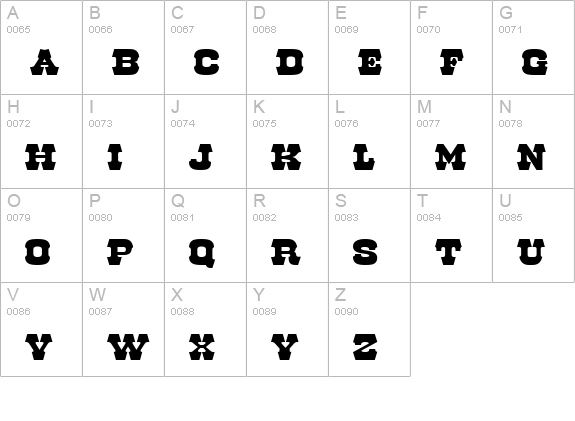
Red Dog Saloon Font Details
The Red Dog Saloon font is a charming and rustic typeface that exudes a sense of adventure and nostalgia. Inspired by the old Wild West saloons, this font perfectly captures the rugged essence of the era. With its bold and decorative letterforms, Red Dog Saloon adds a touch of whimsy and authenticity to any design project. But what truly sets Red Dog Saloon font apart is that it is not only visually stunning but also freely available to download at FontsMarket.com. Yes, you read that right - this incredible font can be yours without costing a penny. Whether you're a designer looking to add a unique twist to your artwork or a business owner in need of a captivating logo, Red Dog Saloon font is the perfect choice. With its wide range of characters and alternate glyphs, Red Dog Saloon font offers endless possibilities for creative expression. From posters and signage to branding materials and social media graphics, this versatile font is sure to make a lasting impression. Its vintage-inspired design combined with modern technology ensures that your designs will stand out from the crowd. So why wait? Embrace the Wild West spirit and download Red Dog Saloon font today for free at FontsMarket.com. Let this remarkable font unleash your creativity and transport your designs to a bygone era filled with cowboys, saloons, and adventure.